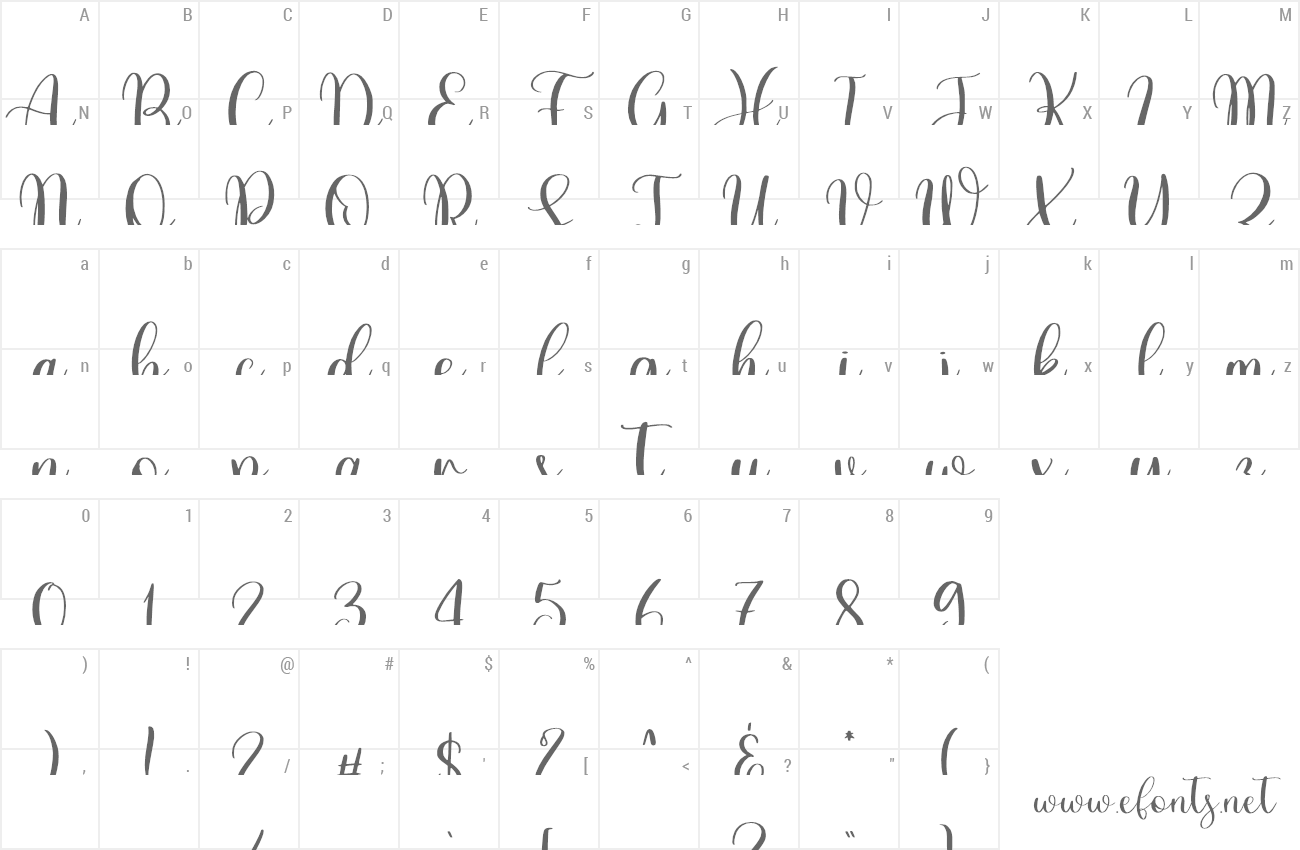
Preview and download Adinda Sayang Font. Created by Abo Daniel in Script Calligraphy styles with Free for personal use license.
Thank You for Downloading ADINDA SAYANG -bouncy calligraphy font- it is great for branding, packaging, quotes, wedding card, logo, signature, t-shirt design, card, banner, and more. Came with 287 alternate glyphs. Every Uppercase Character have 2 alternate. And every lowercase character has 8 - 11 alternate. it is very easy to access, even you use standard software. I created the ligature for it. So you only need to add some characters before or after the lowercase. (You can see on the picture) This fonts license is Free For Personal Use Only with limited features. if You Want to Use for Commercial Project, Please Purchase it on the following link https://www.creativefabrica.com/product/adinda-sayang/ref/236322/ or contact us at panggahlaksono@gmail.com Regards Abo Daniel Studio |